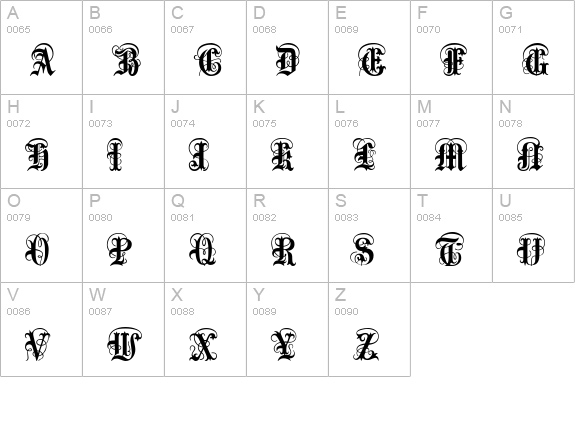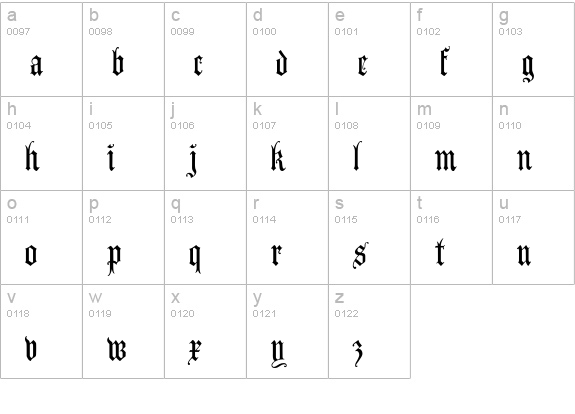
Introducing AnglicanText, a stunningly elegant font that is sure to captivate and inspire. With its classic and timeless design, AnglicanText embodies the essence of sophistication and refinement. This versatile font is perfect for a wide range of projects, whether you're designing a logo, creating eye-catching advertisements, or crafting beautiful invitations. What sets AnglicanText apart is not only its impeccable aesthetics but also its accessibility. It is available for free download at FontsMarket.com, making it easily accessible to anyone looking to elevate their designs. The creators of AnglicanText believe that creativity should know no bounds, which is why they have generously made this font freely available to all. Featuring a harmonious balance of clean lines and intricate details, AnglicanText effortlessly combines tradition and modernity. Each letter is meticulously crafted, ensuring legibility and clarity across various mediums and sizes. Whether showcased in large headlines or used sparingly for subtle accents, AnglicanText brings a touch of elegance to any project. With a wide range of weights and styles, AnglicanText offers limitless possibilities for your creative endeavors. From bold and impactful to delicate and refined, this font allows you to effortlessly express your unique vision. Its versatility extends to multiple languages, making it a truly global font that can be appreciated and utilized by designers from all corners of the world. Incorporating AnglicanText into your designs is a breeze, thanks to its user-friendly nature. Whether you're a seasoned graphic designer or just starting out on your creative journey, this font is designed to make your work seamless and enjoyable. Its compatibility with various design software ensures a smooth integration into any project. So why wait? Experience the beauty and versatility of AnglicanText today. Download this exceptional font for free at FontsMarket.com and unlock a world of creative possibilities. With AnglicanText by your side, your designs will radiate elegance, sophistication, and a touch of timeless charm.